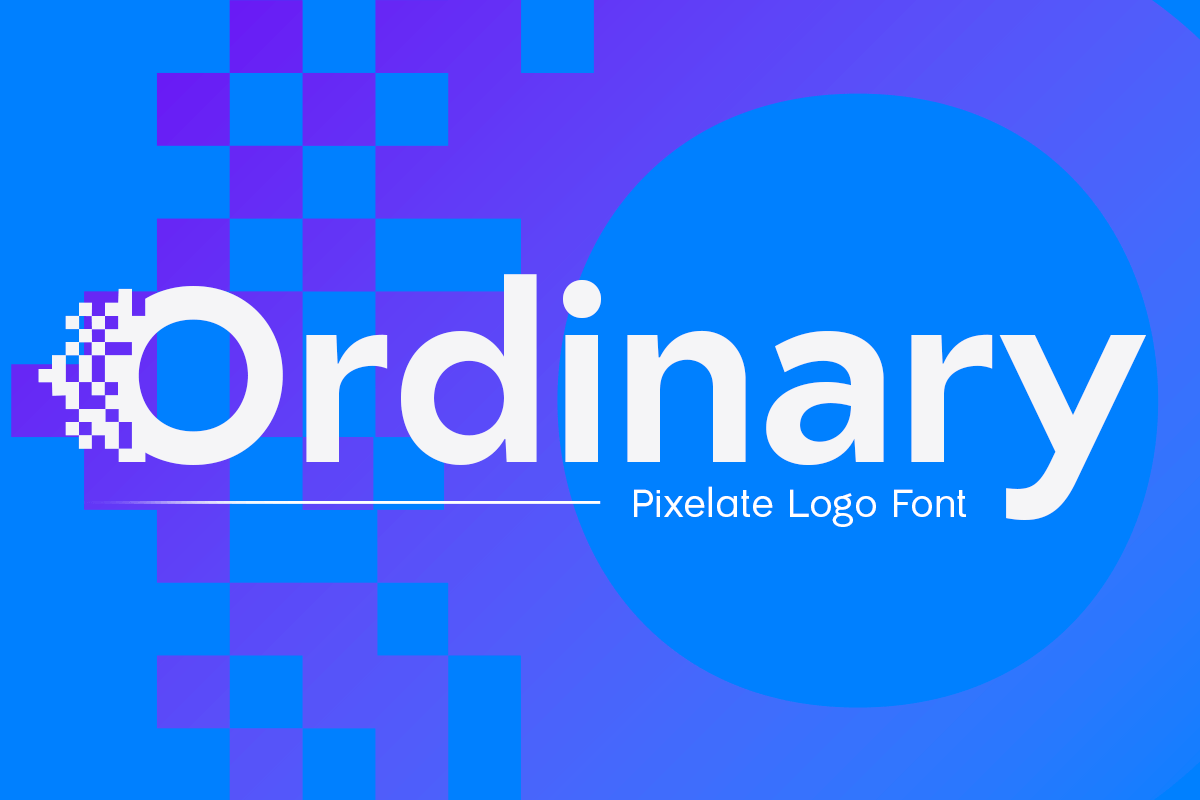
Ordinary
-Pixelate Logo Motion FontOrdinary is a pixelated logo motion font that brings a blend of retro digital aesthetics and modern design elements to life. With its pixel-inspired structure, this font is ideal for technology-based projects, logos, and creative branding. Its pixelated form evokes a sense of nostalgia while offering a unique contemporary twist.
Designed for those who seek to stand out, Ordinary offers a fresh approach to logo design and motion graphics. Its distinctive pixelate style makes it perfect for gaming logos, tech startups, and digital content creators. The font moves seamlessly between retro and futuristic, making it a versatile choice for various creative applications.
Ordinary comes with multilingual support and offers unique ligatures and alternate characters, giving designers more creative freedom. This font is the perfect balance between the old-school pixel look and the sleek demands of modern branding.
Ordinary Pixelate Logo Motion Font Features:
Pixelate Characters Ready
Unique Characters and Perfect for Logo